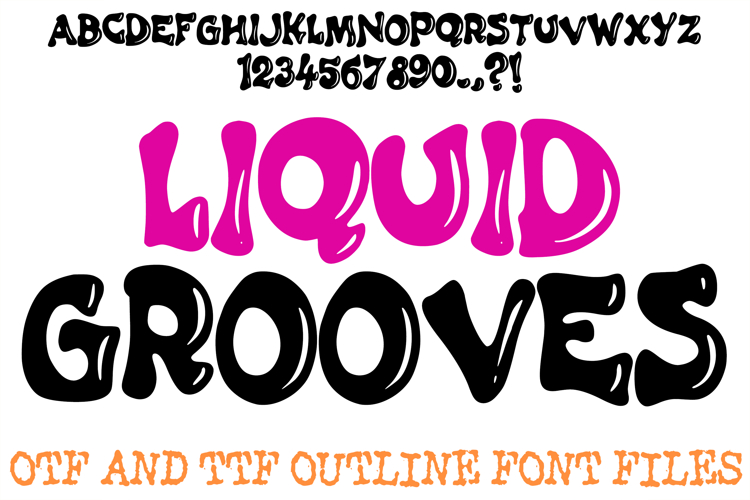
The Liquid Grooves Font is a mesmerizing, ultra-bold display typeface that channels the fluid, wavy energy of vintage '70s psychedelia and liquid retro design. Featuring plump, balloon-like shapes and bottom-heavy curves, each character is accented with sleek internal highlight cuts that give the entire alphabet a glossy, high-shine, 3D appearance. This eye-catching style makes it a premier choice for designers working on vibrant stickers, groovy festival posters, modern streetwear graphics, and nostalgic lifestyle branding.
The design masterfully balances a thick, melting aesthetic with clean, polished perimeters, creating an organic sense of movement as if the letters were slowly shifting under a glossy finish. Its heavy visual weight ensures maximum display impact, effortlessly leaping off the page or screen. Whether you are creating a bold header for an alternative music album or adding a playful, retro touch to custom merchandise, this typeface injects an undeniable rhythm and standout personality into any creative layout.
Glossy 3D Highlight Details: Sleek, integrated negative-space cuts mimic light reflections, giving the ultra-thick letters a shiny, polished, and dimensional surface texture.
Groovy Psychedelic Flow: The exaggerated, asymmetric bottom expansions deliver a classic late '60s and '70s counter-culture vibe with a modern, liquid twist.
Massive Display Impact: Exceptionally bold and chunky letterforms guarantee your headings, logos, and titles will instantly grab attention and command the layout.
Clean Fluid Architecture: Smooth outer curves and distinct interior spaces ensure that the text remains highly readable despite its wild, melting proportions.